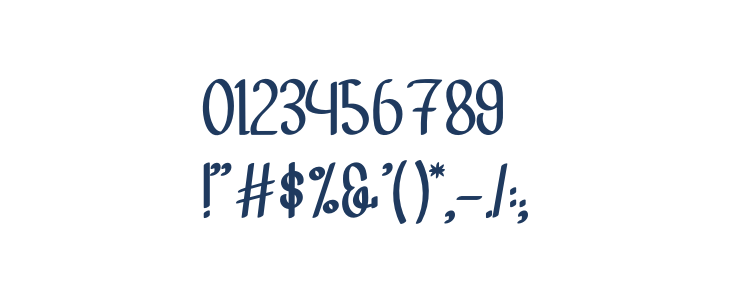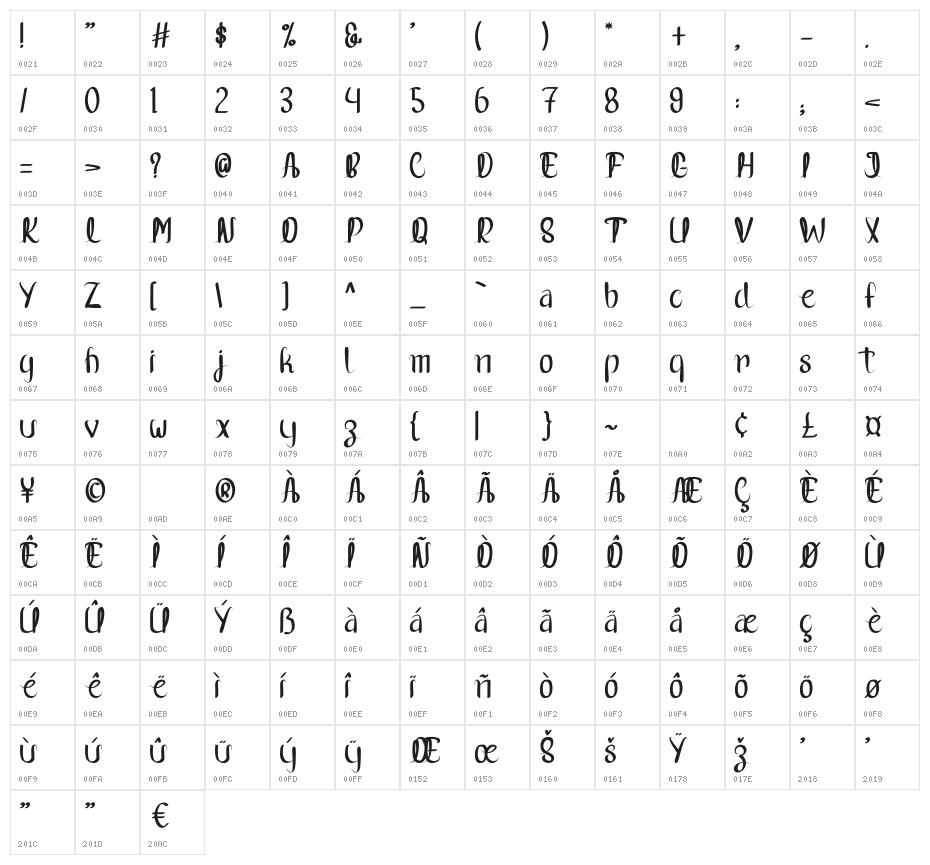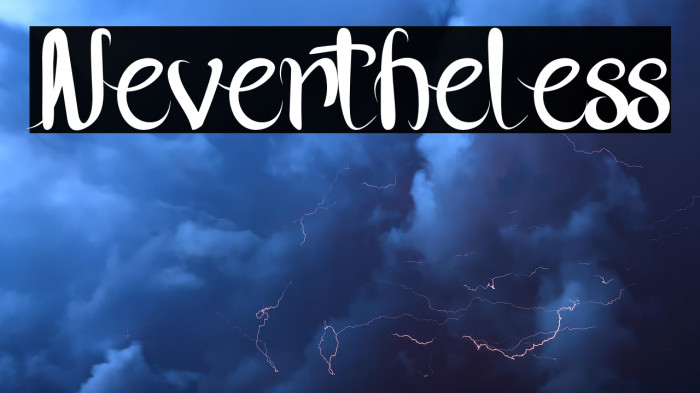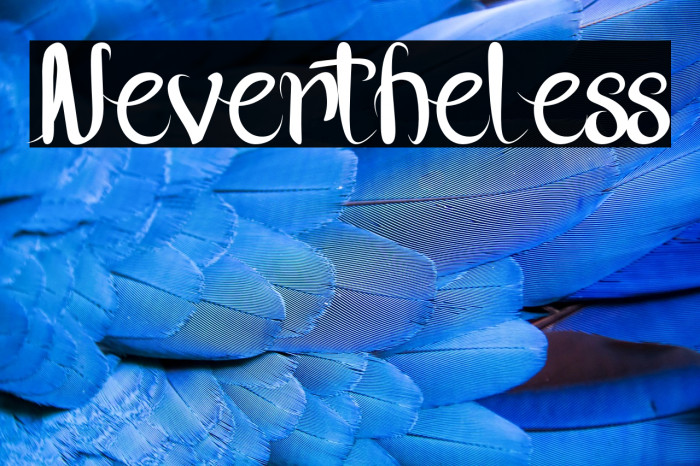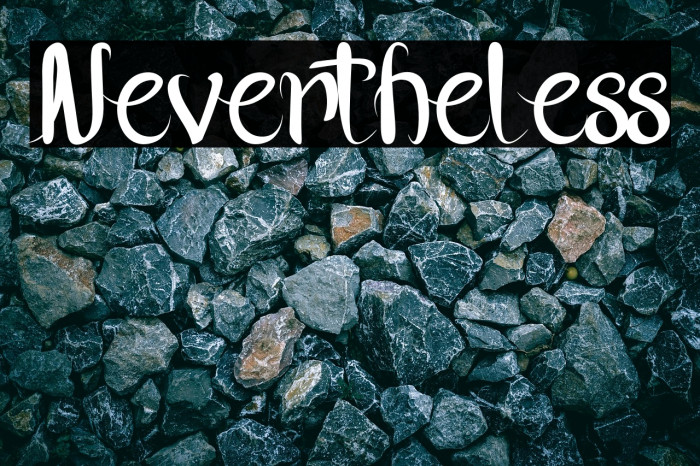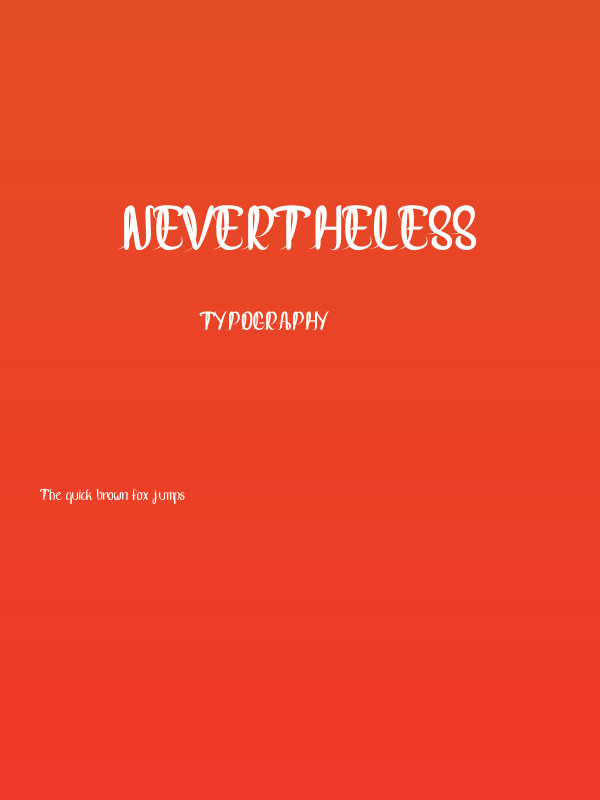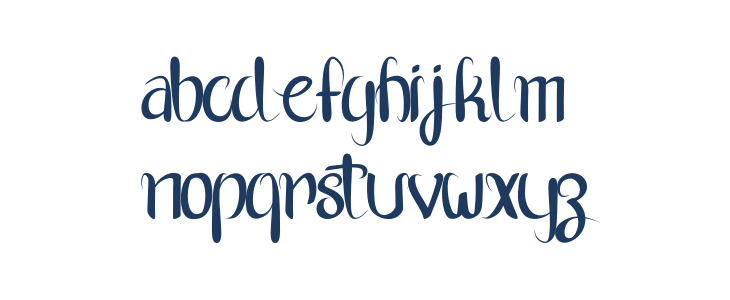
Nevertheless Font
Nevertheless Description
This font features a dynamic and flowing script style, characterized by its elegant and artistic curves. The uppercase letters exhibit a bold and expressive form, with sweeping lines that create a sense of movement and fluidity. The lowercase letters maintain a consistent style, with a slightly more restrained approach, yet still retaining the overall graceful appearance. The numerals are designed with a similar flair, ensuring a cohesive look across all characters. Special characters are thoughtfully integrated, maintaining the font's artistic integrity. This font is ideal for projects that require a touch of sophistication and creativity.
| Use Case | Logos, Invitations, Artistic projects |
| Proposed Projects | Ideal for wedding invitations, branding, logo design, and artistic projects requiring a sophisticated touch. |